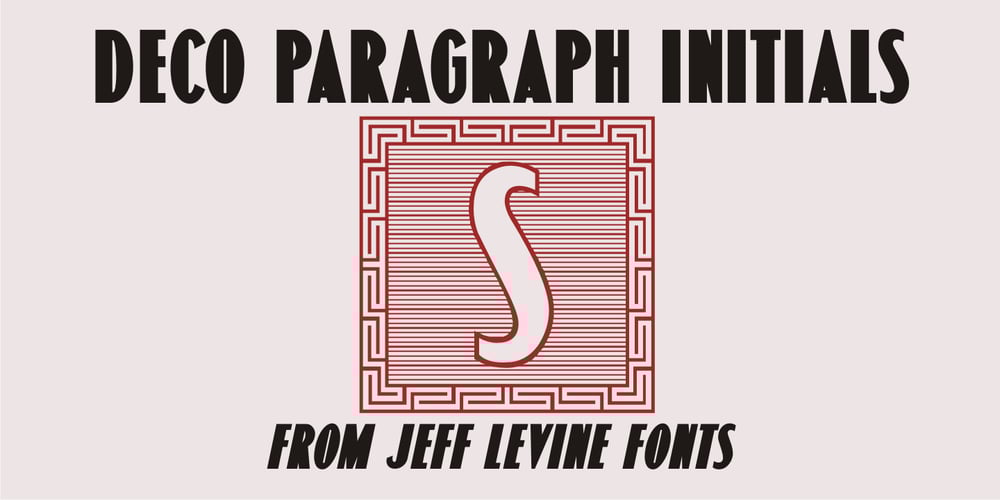
Deco Paragraph Initials JNL Font Family was designed by Jeff Levine and published by Jeff Levine. Deco Paragraph Initials JNL contains 1 styles and family package options. Deco Paragraph Initials JNL contains an alphabet based on the typeface Monthly Adventures JNL and is set within an attractively framed border. Suitable for personalized stationery, used as paragraph drop caps or as decorative monograms, these Art Deco-flavored letters add the charm and clean look of the “Streamline Era”.